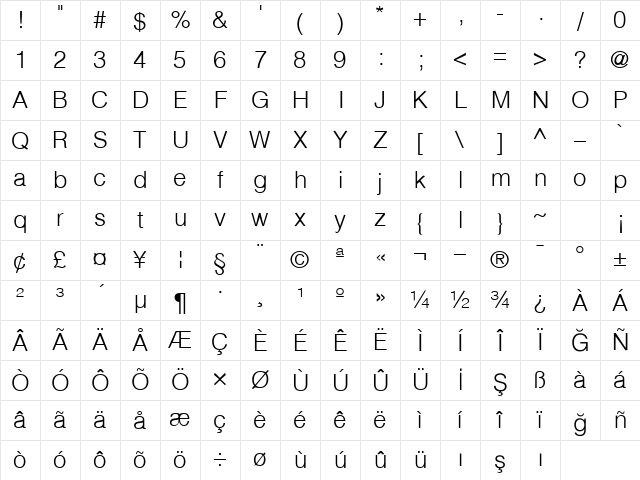
TrSahHelveticaLight Regular Free Font
TrSahHelveticaLight Regular
Design Context for TrSahHelveticaLight
TrSahHelveticaLight is a composed and adaptable typeface that performs quietly and consistently across a wide range of design contexts. Its slender proportions lend an understated elegance to any composition.